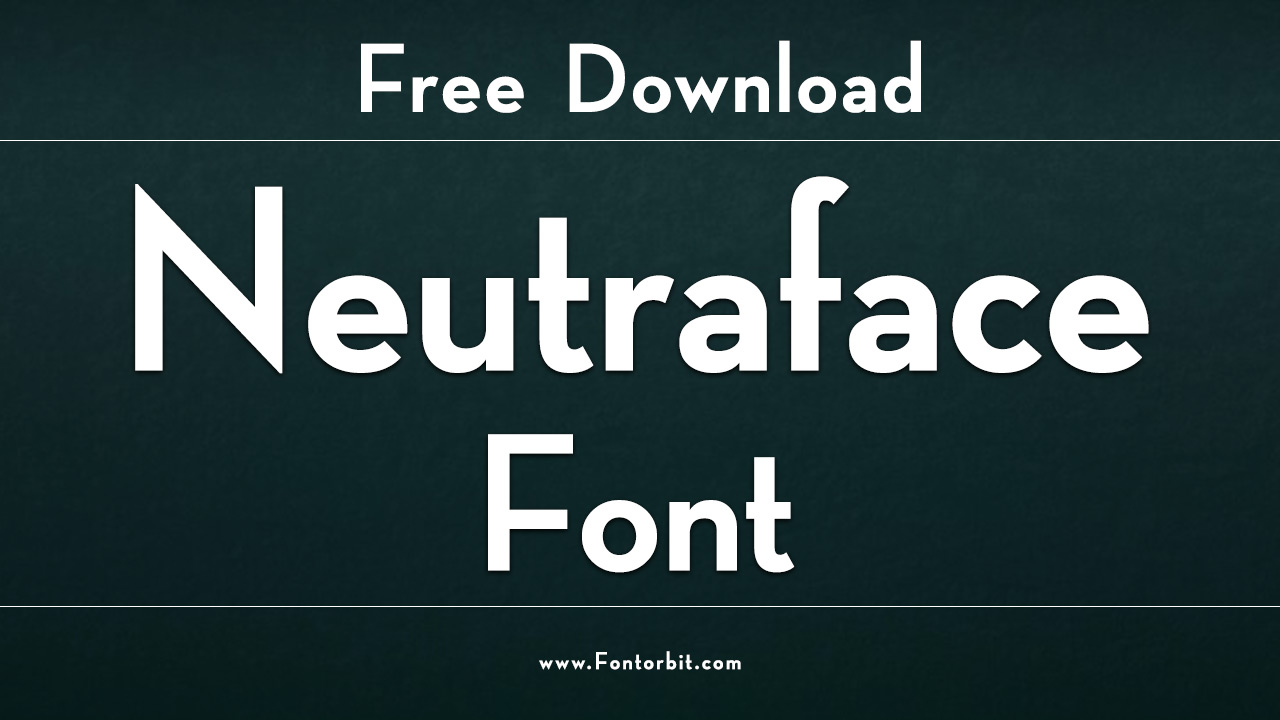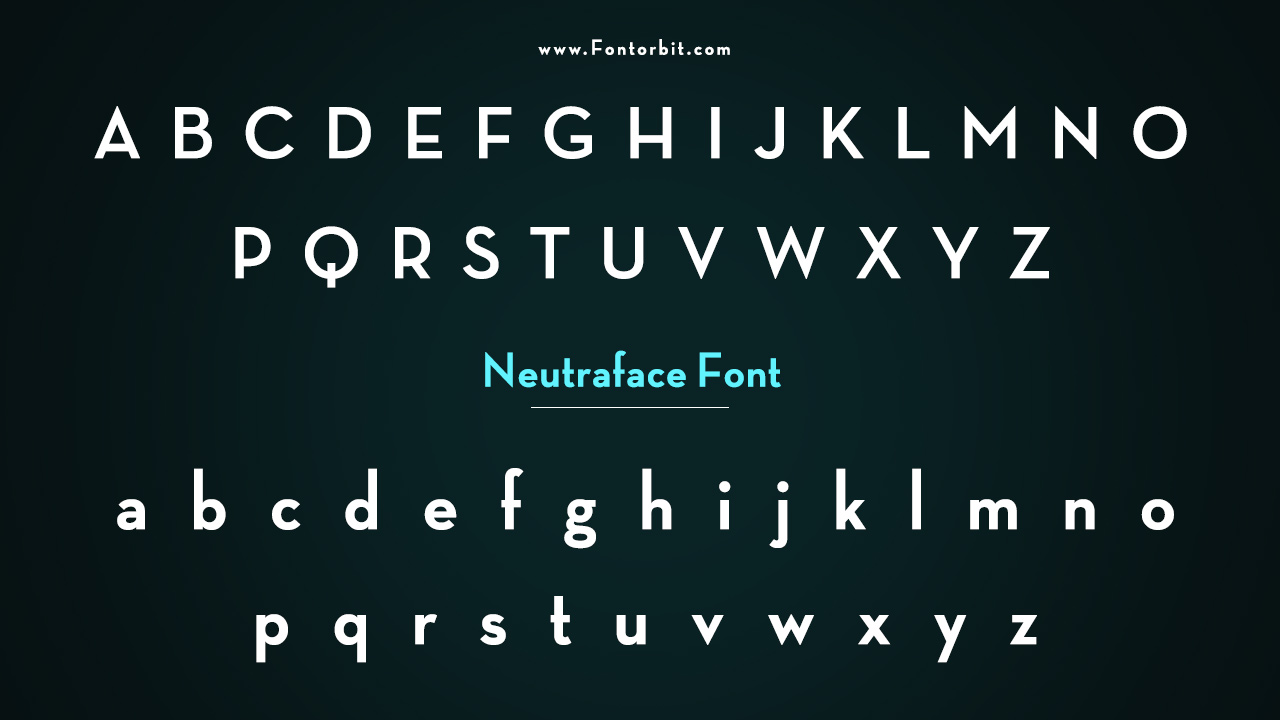
Neutraface is a geometric sans-serif typeface family designed by Christian Schwartz for House Industries. It was released in 2002 and is inspired by the architectural lettering of Richard Neutra, a famous mid-century modern architect. The font family includes various weights, styles, and versions designed to work across different mediums and scales. A versatile choice for modern design.
Neutraface Family Includes
Neutraface is an expansive family that covers multiple styles and versions, each with its own purpose in design. Some key variations include:
- Neutraface Text Book
- Neutraface Text Book Italic
- Neutraface Text Light
- Neutraface Text Light Italic
- Neutraface Text Demi
- Neutraface Text Demi Italic
- Neutraface Text Bold
- Neutraface Text Bold Italic
Neutraface’s clean lines and geometric shapes create a perfect fit for a variety of applications that require a modern, structured feel. It is particularly suited for:
- Trailers
- Infographics
- Advertisements
- Office branding
- Retail store interiors
- Magazine and newspaper ads
- Annual reports
- Stadium branding
- Museum exhibitions
Neutraface is a highly adaptable font family that shines in modern design projects, especially those influenced by architectural or minimalist aesthetics. Its wide range of styles offers something for nearly every design need. Whether you’re creating a logo, a website, or a printed piece, Neutraface is a solid choice for a clean and professional result.
1. Can I Use Neutraface For Web Design?
Absolutely, it works well in digital mediums.
3. Are There Any Free Alternatives To Neutraface?
Yes, fonts like Raleway and Mont offer similar styles.
4. What Is Neutraface Slab Used For?
It’s great for bold, robust headlines or signage.
5. What’s The Difference Between Neutraface Display And Text?
Display is optimized for large, eye-catching headlines, while Text is tailored for readability at smaller sizes.